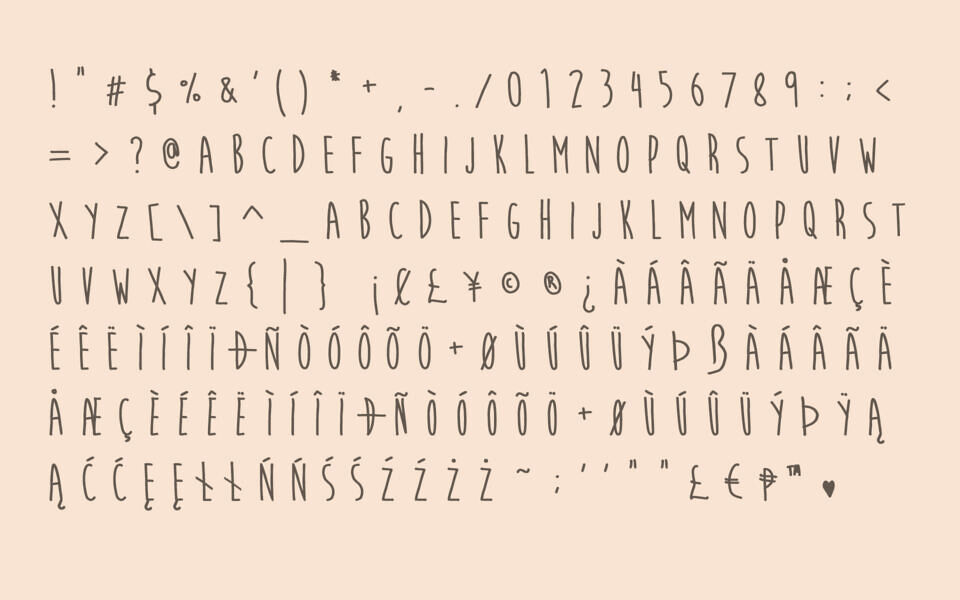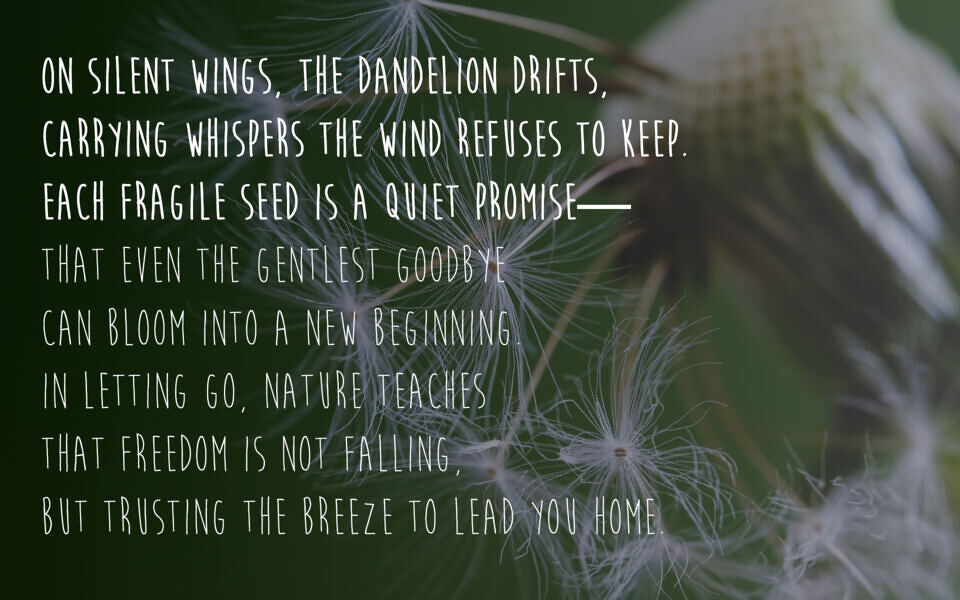
Moon Flower Font
Moon Flower is a delicate handwritten script font designed by Denise Bentulan. With its casual, organic aesthetic, it is ideal for invitations, scrapbooking, and creative projects that require a natural, human touch. It features 207 glyphs and is widely recognized for its clean, fluid strokes.
Designed by: Denise Bentulan